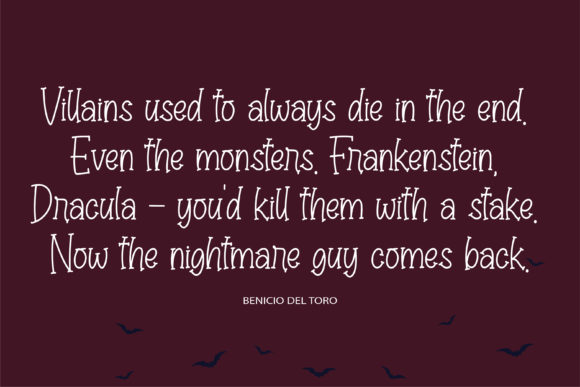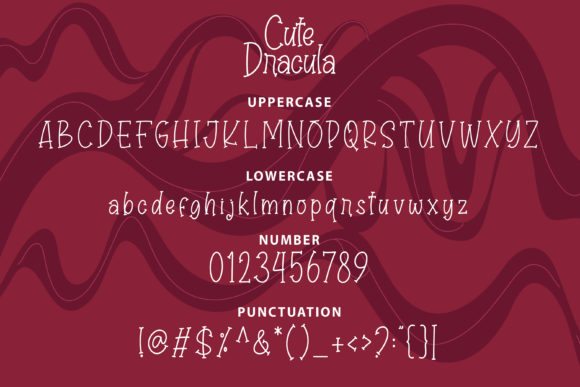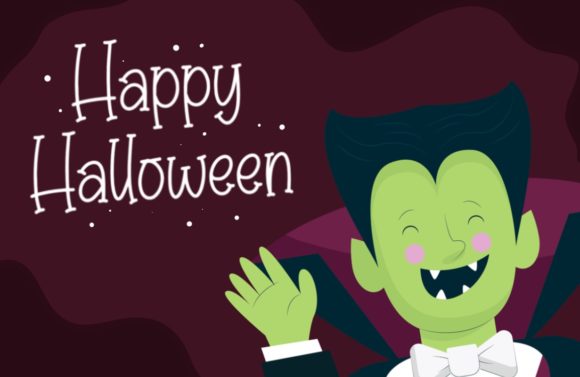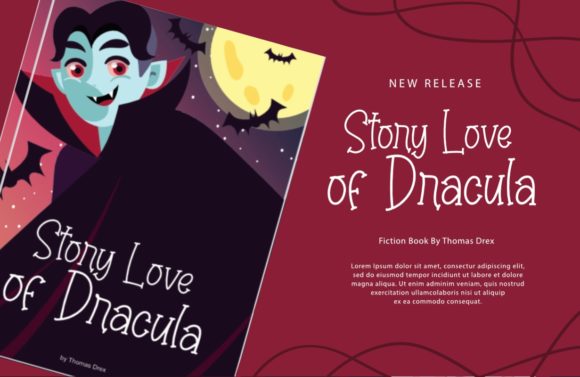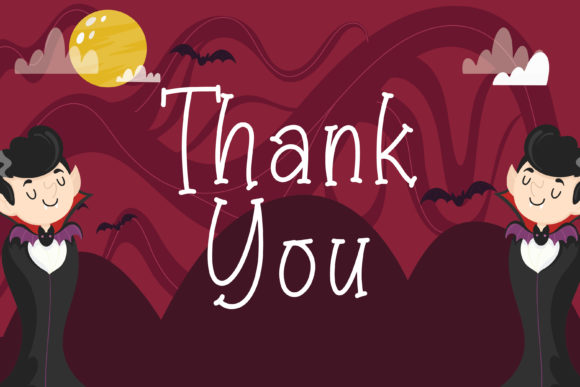
Cute Dracula Font: Add a Touch of Whimsy to Your Designs
Are you tired of using the same old fonts in your designs? Do you want to add a touch of personality and whimsy to your creative projects? Look no further than the Cute Dracula font! This adorable display font is sure to bring a smile to your face and make your designs stand out from the crowd.
What is Cute Dracula Font?
Cute Dracula is a cute and quirky display font that is perfect for adding a playful touch to your designs. With its unique and charming lettering style, this font is sure to capture the attention of your audience. Whether you’re working on a graphic design project, crafting a DIY sign, or creating digital art, Cute Dracula font is the perfect choice.
Key Features of Cute Dracula Font
- Cute and Quirky Design: Cute Dracula font features a one-of-a-kind design that is both adorable and eye-catching.
- Display Font: This font is specifically designed as a display font, making it perfect for headlines, titles, and other prominent text elements.
- Unique Lettering Style: The lettering style of Cute Dracula font is both playful and charming, adding a touch of personality to your designs.
- Easy to Read: Despite its quirky design, Cute Dracula font is easy to read, making it perfect for use in a variety of design projects.
How to Use Cute Dracula Font in Your Designs
Cute Dracula font is versatile and can be used in a variety of design projects, including:
- Graphic Design: Use Cute Dracula font in your graphic design projects, such as brochures, posters, and business cards.
- Digital Art: Add a touch of whimsy to your digital art projects, such as illustrations and paintings.
- Crafting: Use Cute Dracula font in your crafting projects, such as DIY signs, cards, and scrapbooking.
- Social Media: Use Cute Dracula font to create eye-catching social media graphics and posts.
Benefits of Using Cute Dracula Font
Using Cute Dracula font in your designs offers a range of benefits, including:
- Stand Out Designs: Cute Dracula font is sure to make your designs stand out from the crowd and grab the attention of your audience.
- Increased Engagement: The playful and charming design of Cute Dracula font is sure to increase engagement and encourage interaction with your designs.
- Personality and Character: Cute Dracula font adds a touch of personality and character to your designs, making them more relatable and memorable.
Tips for Using Cute Dracula Font
Here are a few tips for using Cute Dracula font in your designs:
- Use it Sparingly: Cute Dracula font is a display font, so use it sparingly to add emphasis and impact to your designs.
- Pair it with Other Fonts: Pair Cute Dracula font with other fonts to create a unique and visually appealing design.
Cute Dracula font is a unique and charming display font that is perfect for adding a touch of whimsy to your designs. With its playful and quirky design, this font is sure to capture the attention of your audience and make your designs stand out from the crowd. Whether you’re a designer, crafter, or DIY enthusiast, Cute Dracula font is a must-have addition to your font collection.